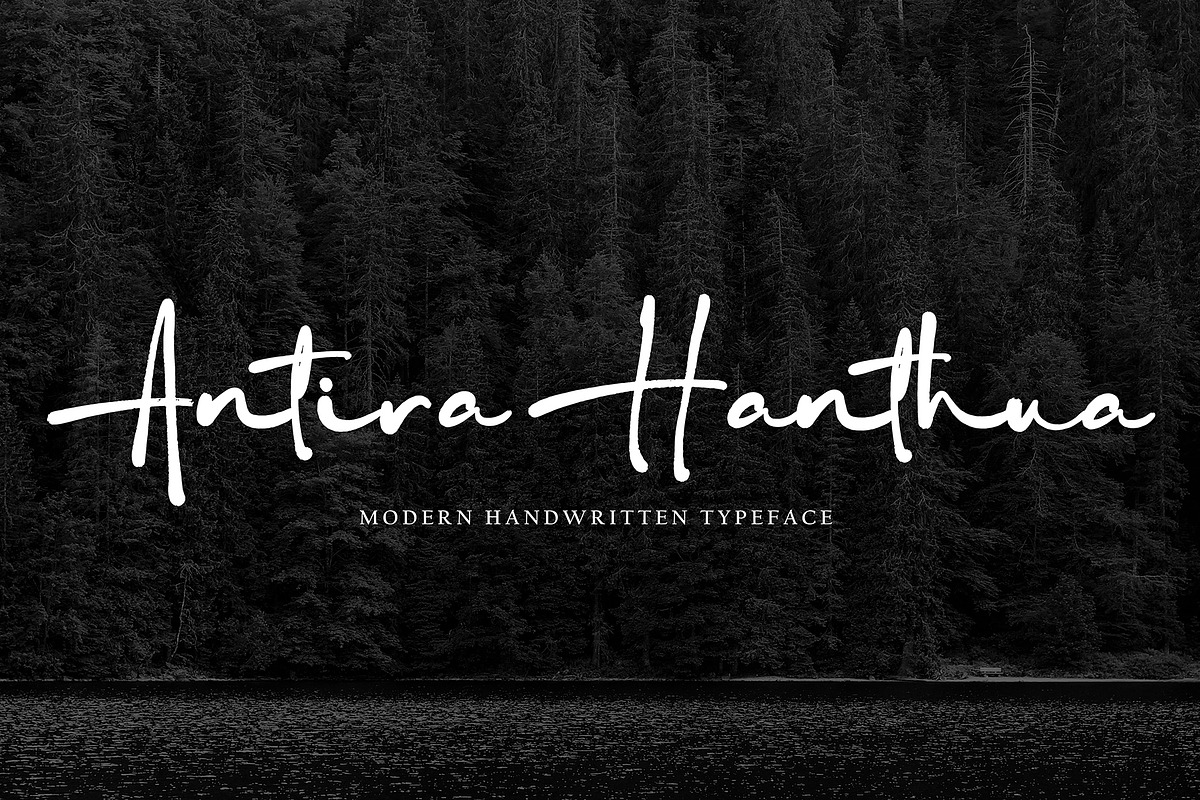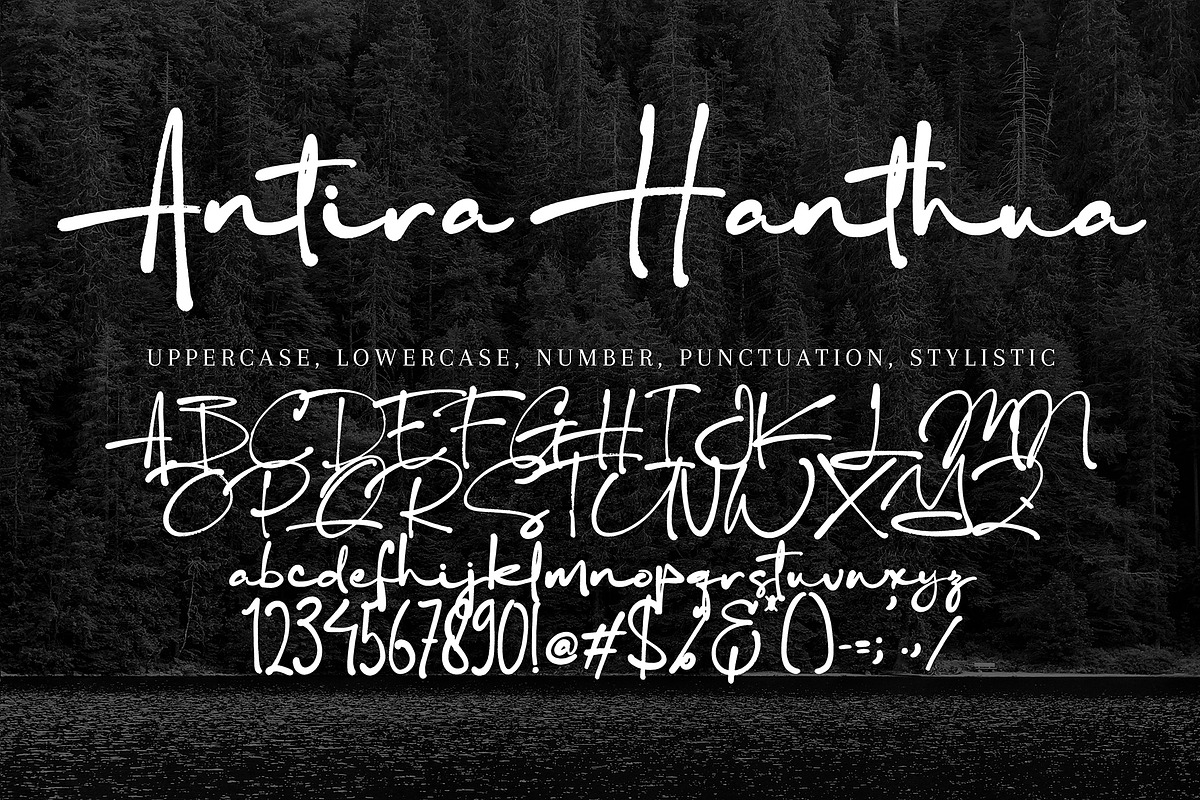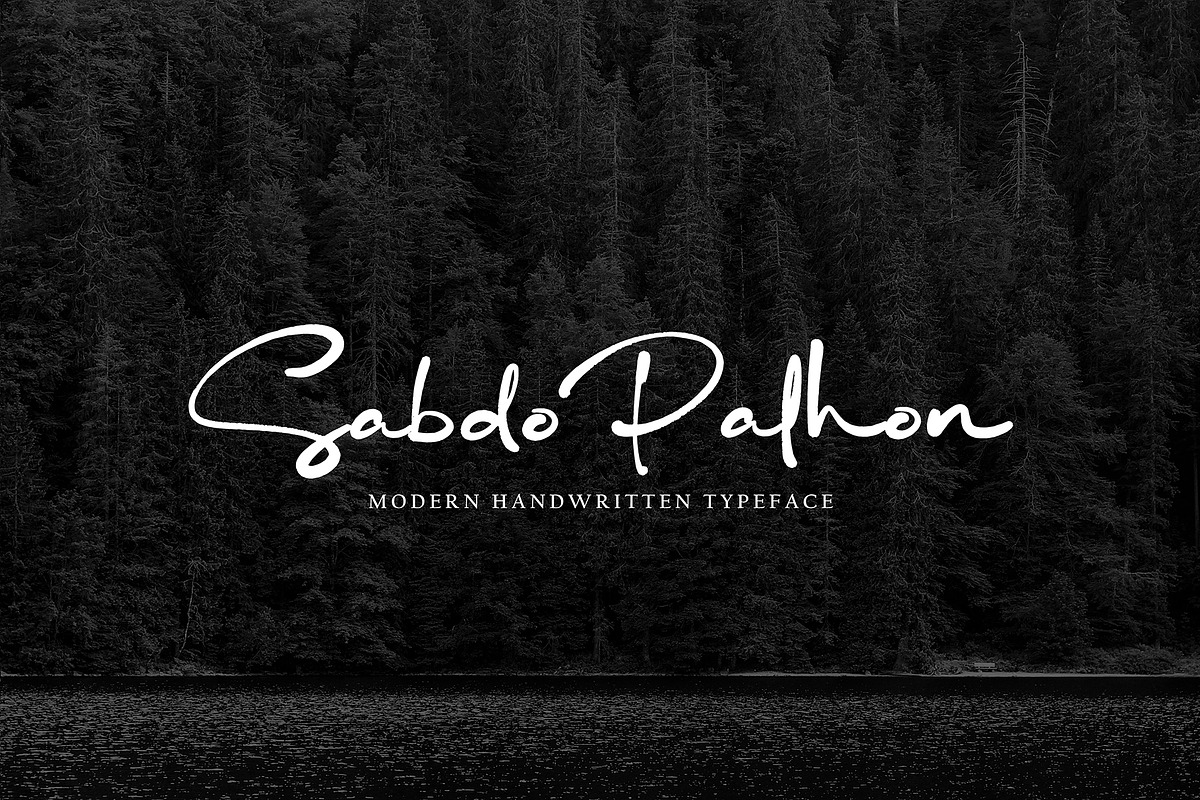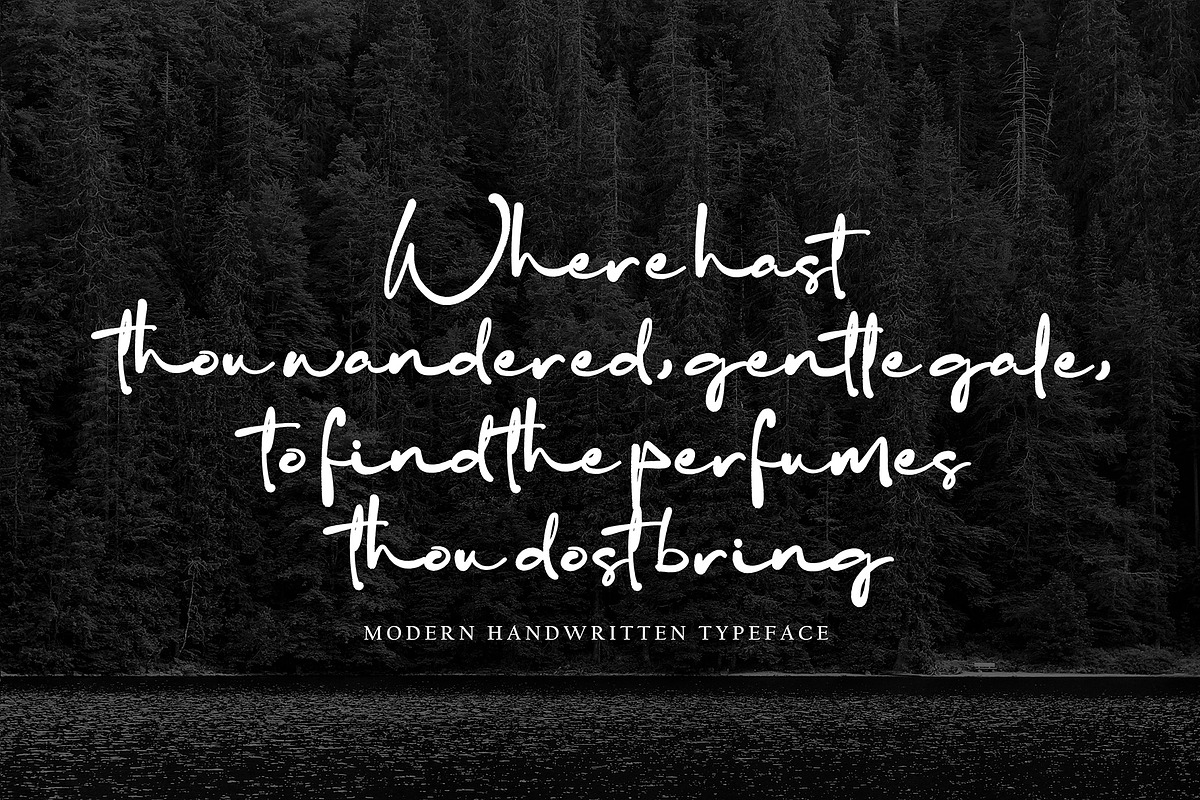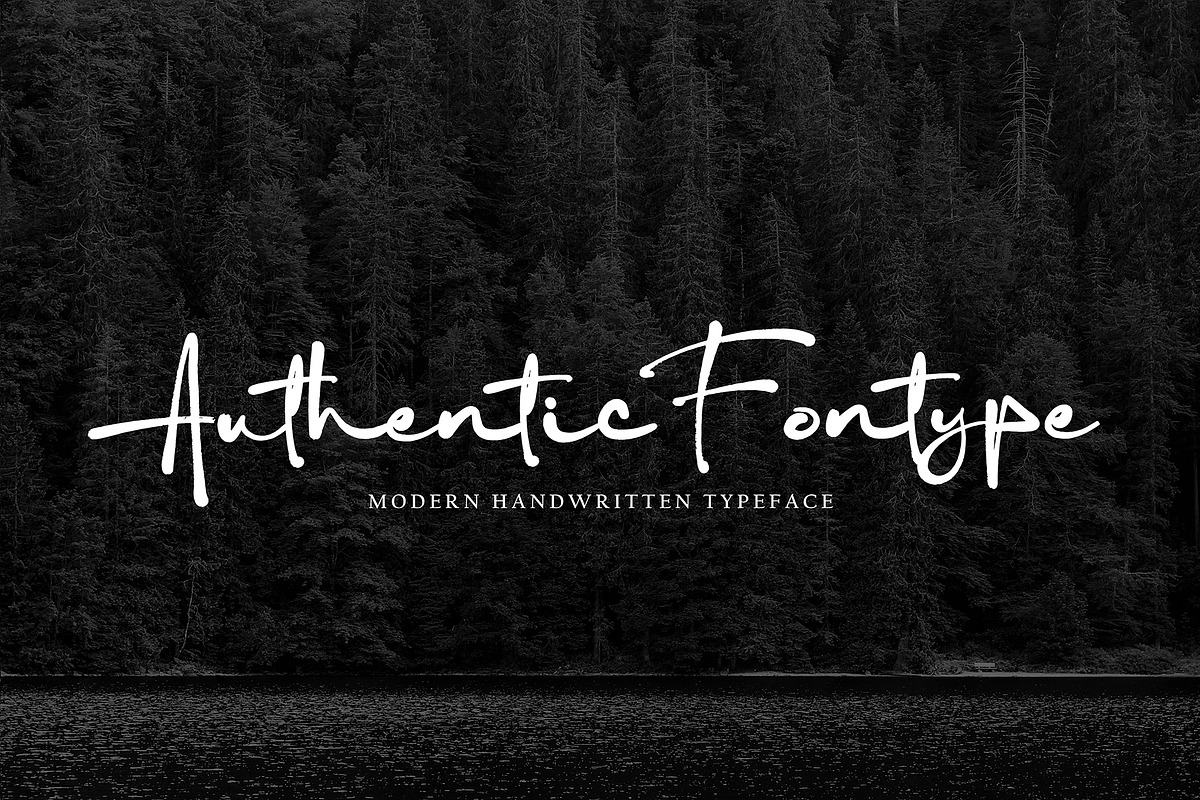
Antira Hanthua
Antira Hanthua with new style, this font will perfect for many different project ex: quotes, logo, blog header, poster, banding, letter, invitation, stationery, etc...